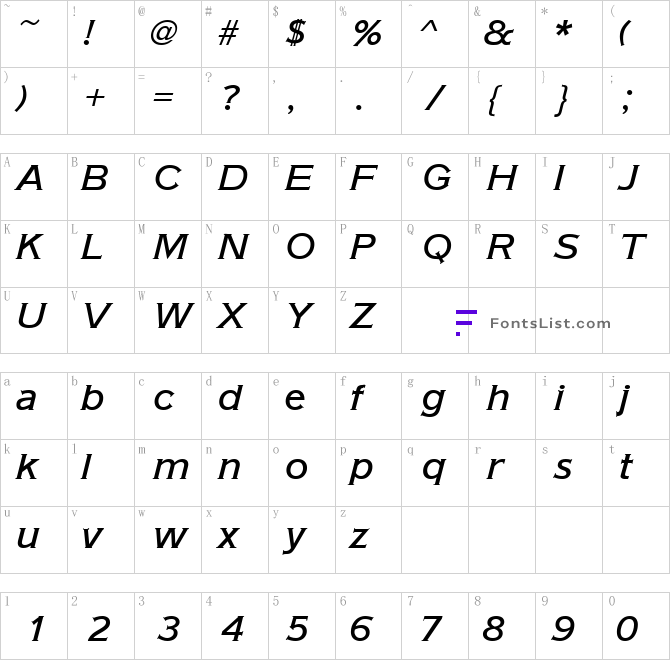
- Font Name:AmericanGotURWTMed
- Subfamily:URW:AmericanGotURWT-MediItal:2000
- Full Name:AmericanGotURWTMed Italic
- PostScript:AmericanGotURWT-MediItal
AmericanGotURWTMed-Italic.ttf is a very beautiful artistic font, AmericanGotURWTMed-Italic.ttf is widely used in the design and printing of various books and pictures,AmericanGotURWTMed-Italic.ttf has a strong visual impact,AmericanGotURWTMed-Italic.ttf is a commonly used font in newspapers, magazines and books, and is used in posters, e-commerce Poster design, store design, logo design, font design and other fields.AmericanGotURWTMed-Italic.